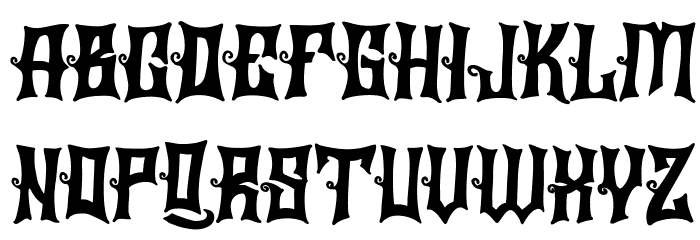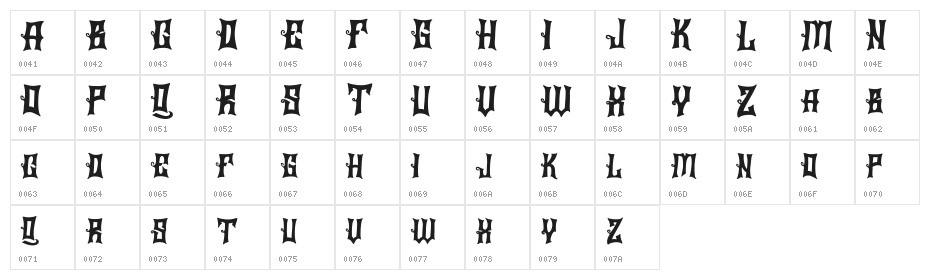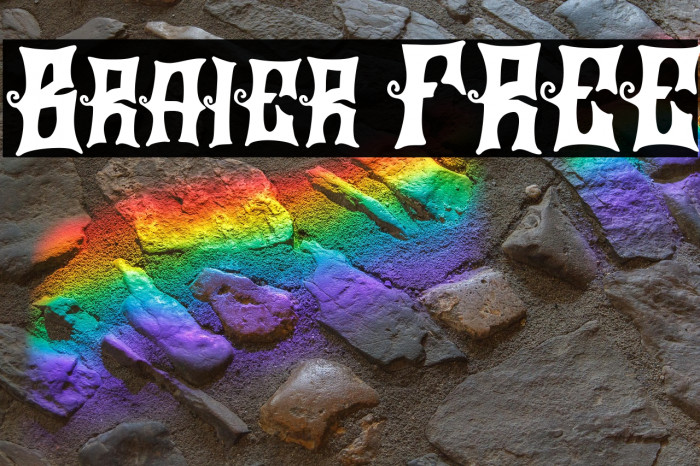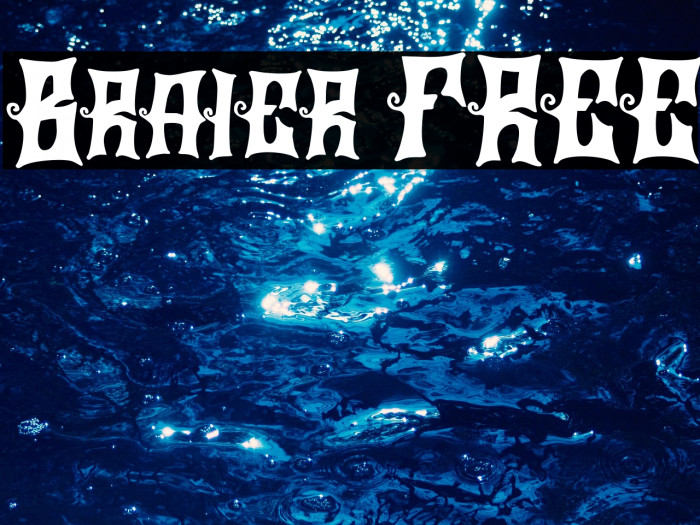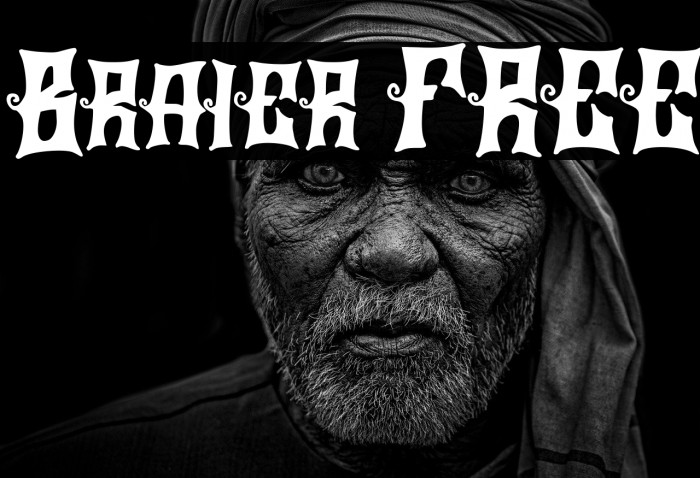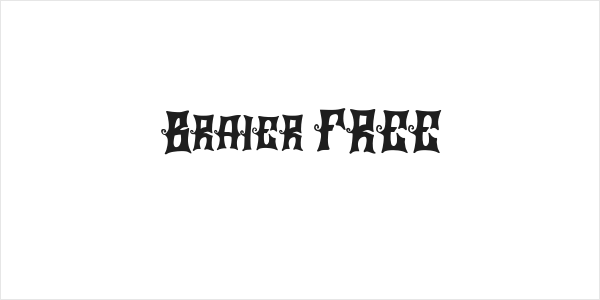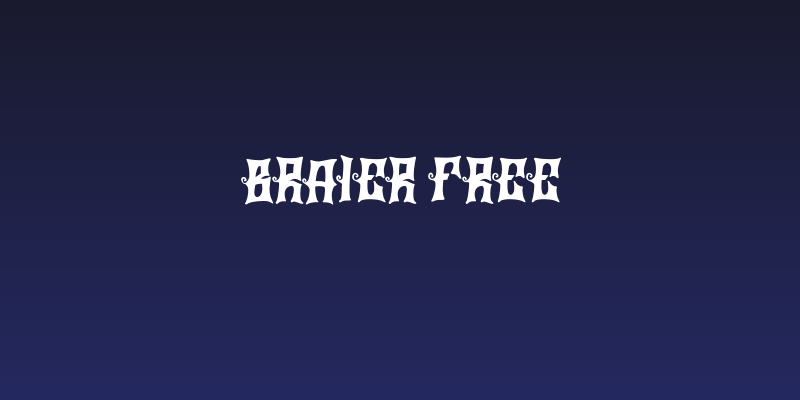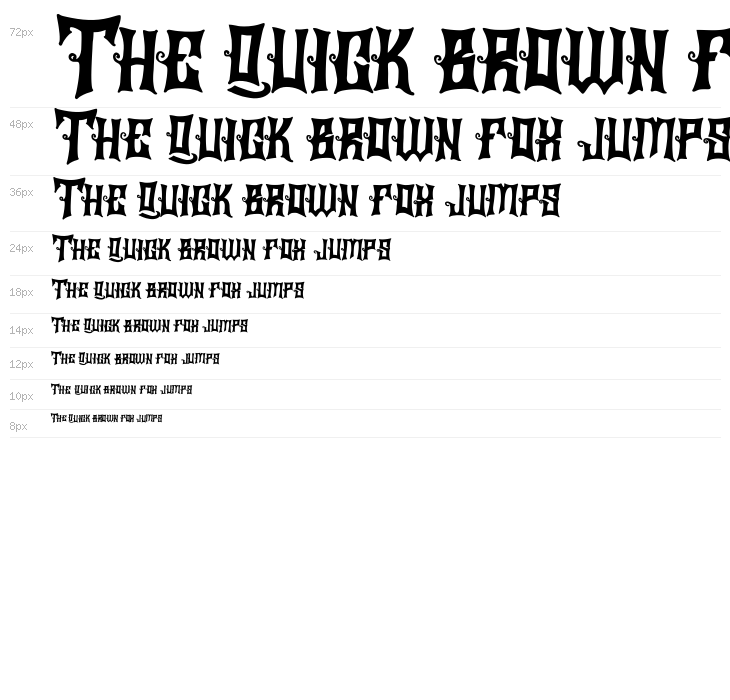
Braier FREE Font
This font features a bold and decorative style with intricate details that give it a unique and artistic appearance. The characters are embellished with flourishes and sharp edges, creating a dramatic and eye-catching look. The uppercase letters are particularly ornate, with swirling elements that add to the font's distinctiveness. The overall design is reminiscent of Gothic or medieval styles, making it suitable for projects that require a touch of elegance and historical flair. The font's boldness ensures it stands out, while the decorative elements provide a sense of sophistication and creativity.
A bold, decorative font with intricate Gothic-inspired details.
- Proposed Projects: Ideal for use in branding, posters, book covers, and any project needing a dramatic, historical touch.